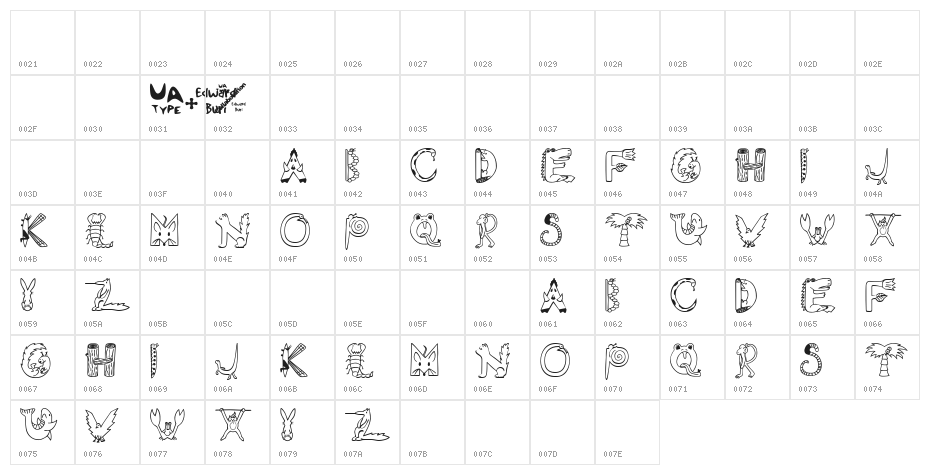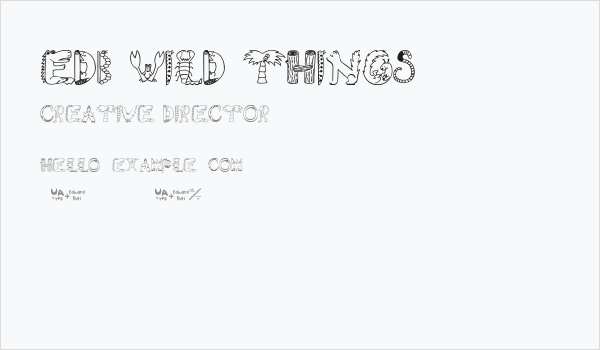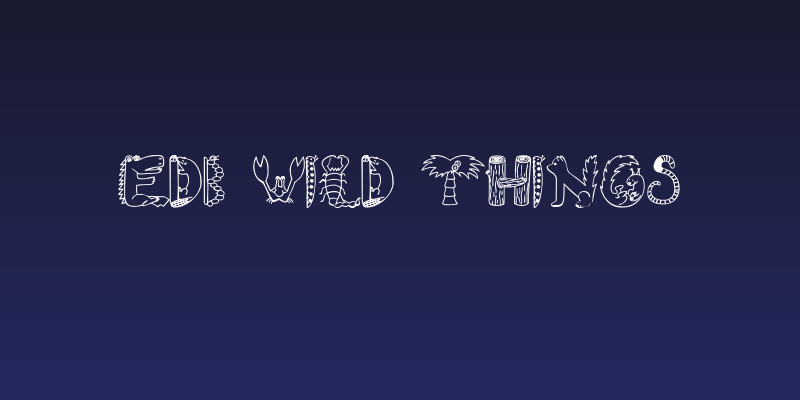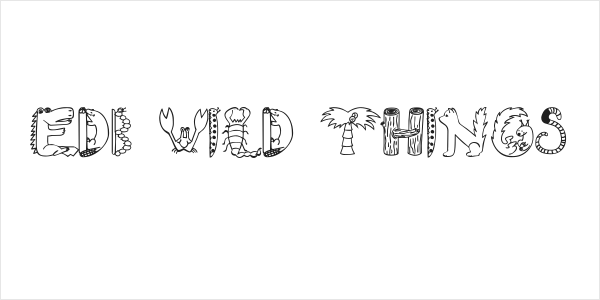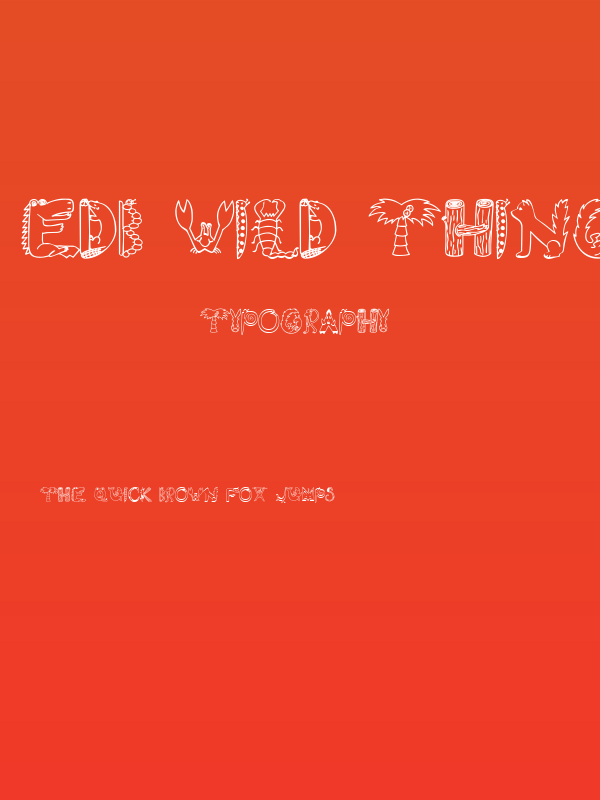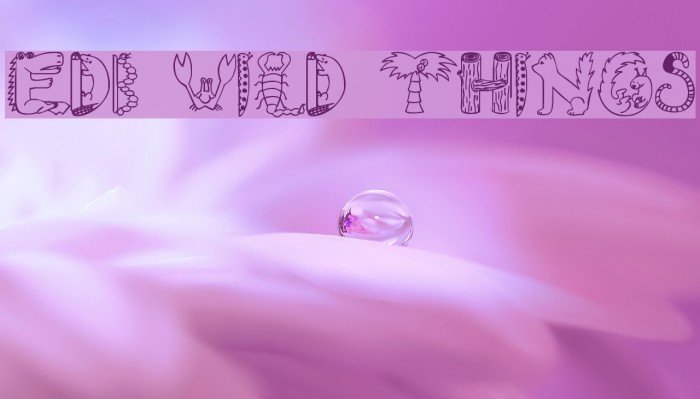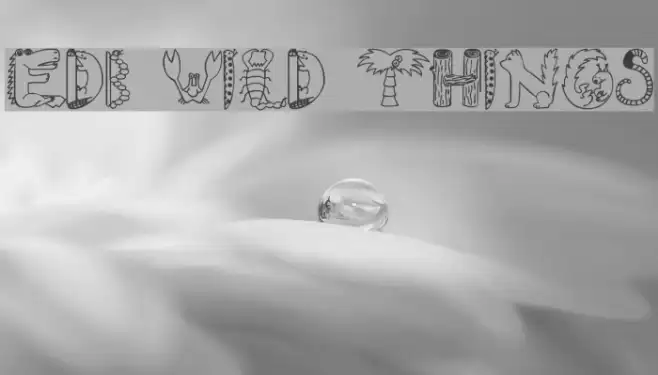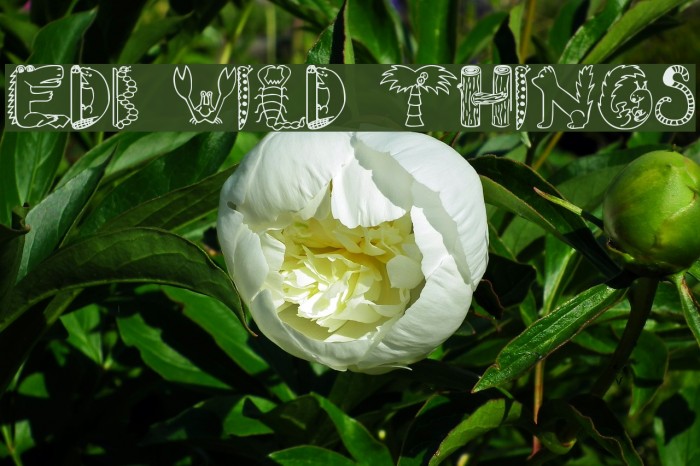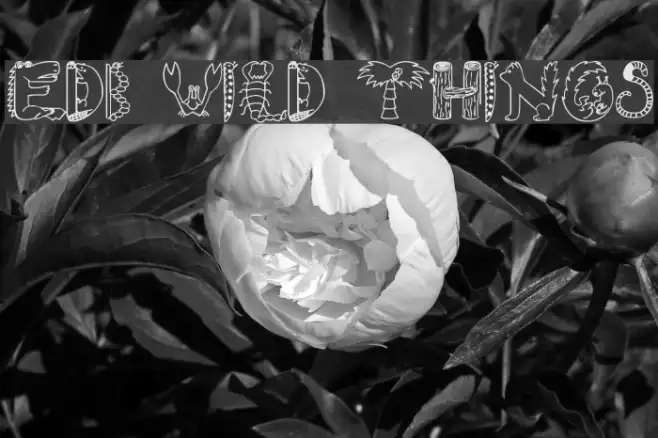
EDB Wild Things Font
EDB Wild Things Description
This playful and whimsical font features a variety of creative and imaginative elements integrated into each letter. Each character is uniquely designed with elements resembling wild creatures, nature, and fantasy themes. The letters incorporate textures and patterns such as scales, fur, and feathers, adding a dynamic and lively feel. The font is highly decorative, making it ideal for projects that require a fun and engaging visual impact. Its intricate details and imaginative style make it stand out, perfect for capturing attention and sparking curiosity.
| Proposed Projects | Ideal for children's books, fantasy-themed posters, playful branding, and creative invitations. |